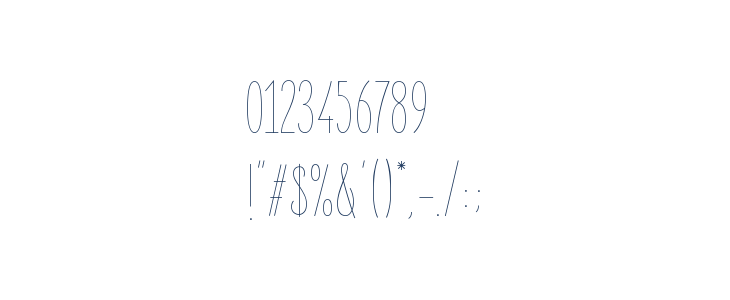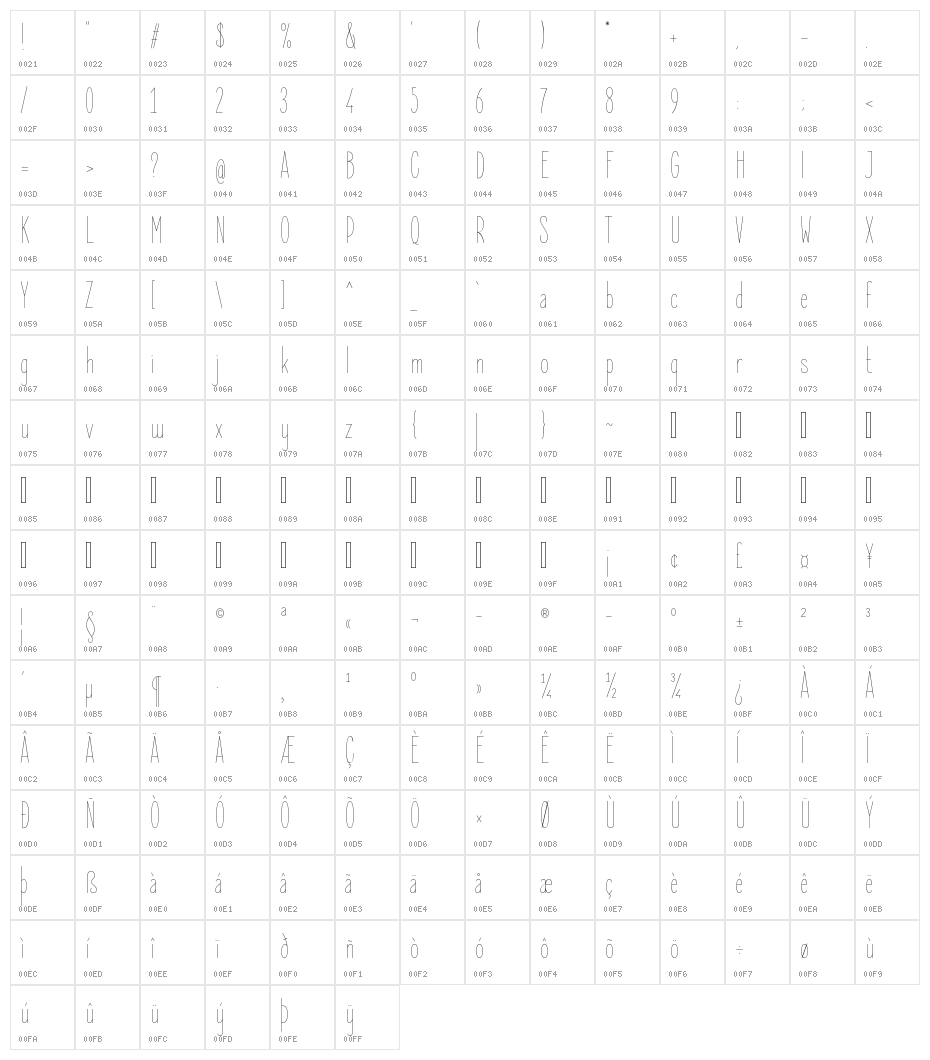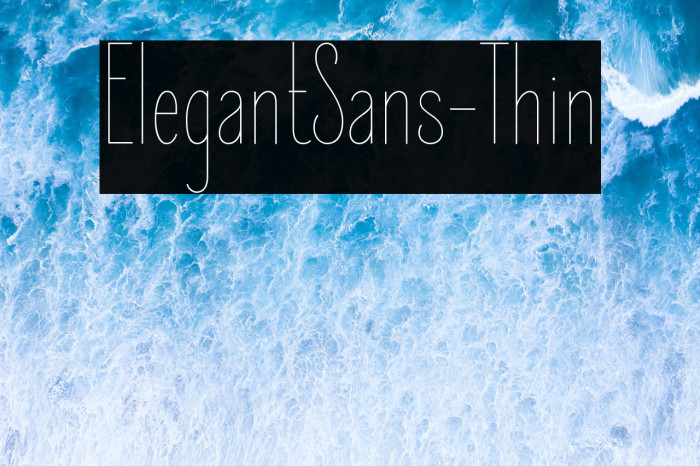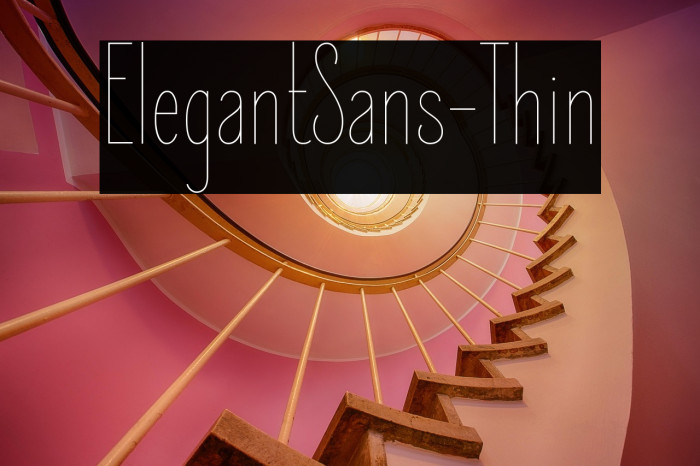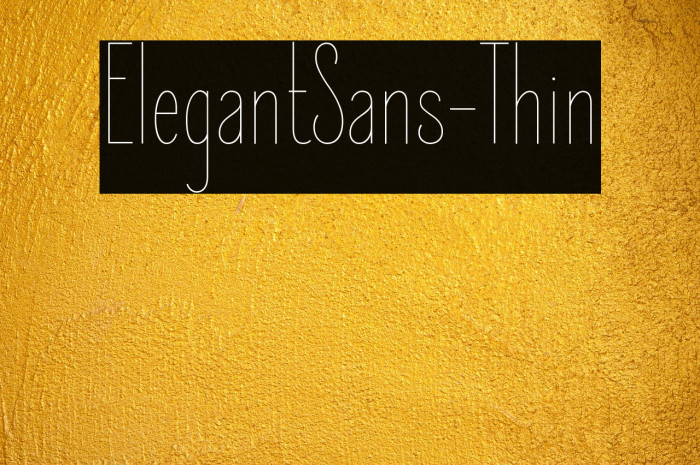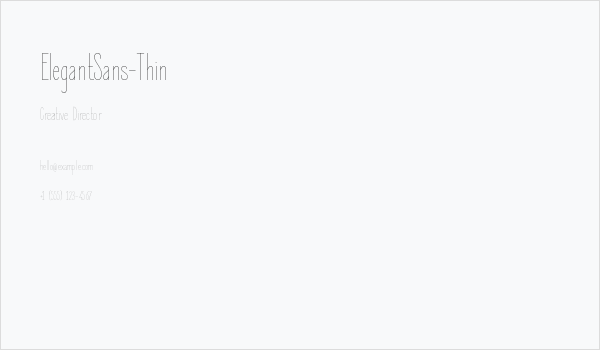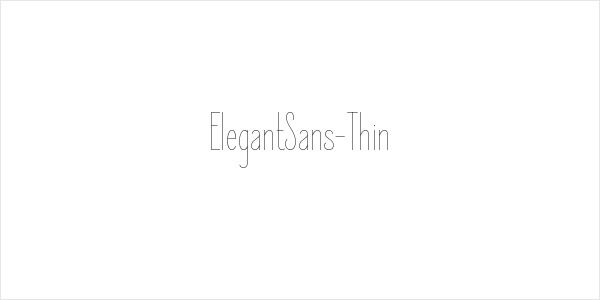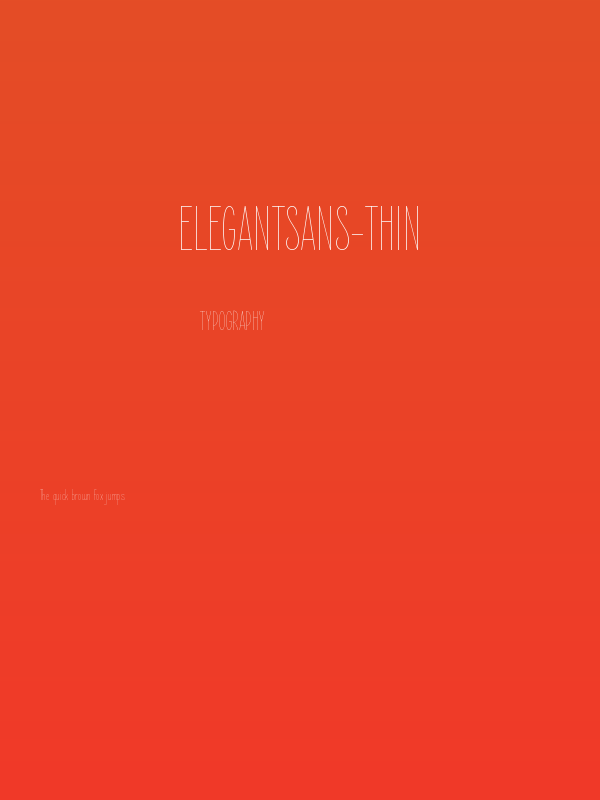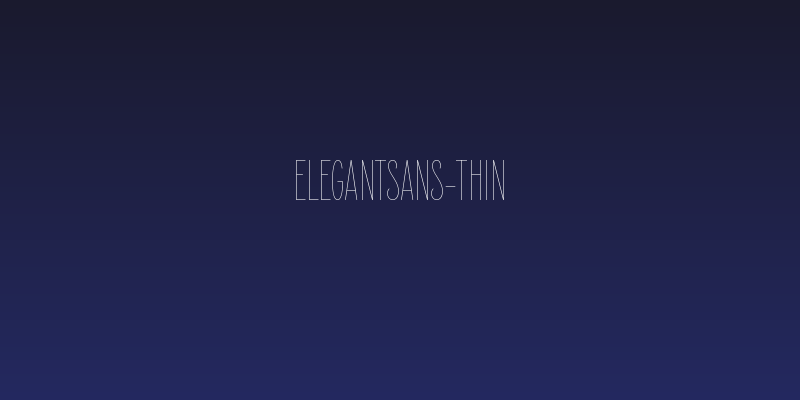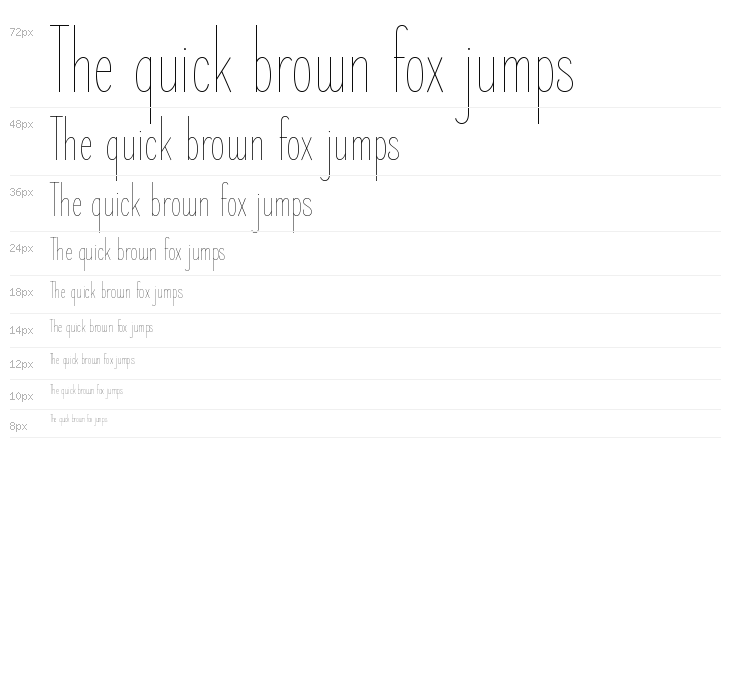
ElegantSans-Thin Font
ElegantSans-Thin Description
This font features a sleek and minimalistic design with thin, elongated letterforms that exude elegance and modernity. The characters are uniformly narrow, creating a cohesive and streamlined appearance. The uppercase and lowercase letters maintain a consistent height, while the numerals and special characters blend seamlessly into the overall aesthetic. The font's delicate strokes and clean lines make it ideal for projects that require a refined and sophisticated touch.
| Proposed Projects | Ideal for fashion magazines, luxury branding, minimalist posters, and modern web design. |